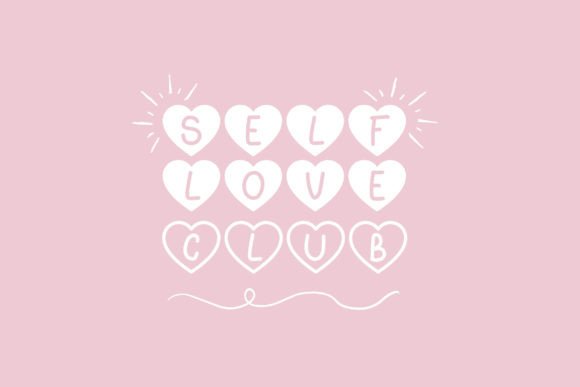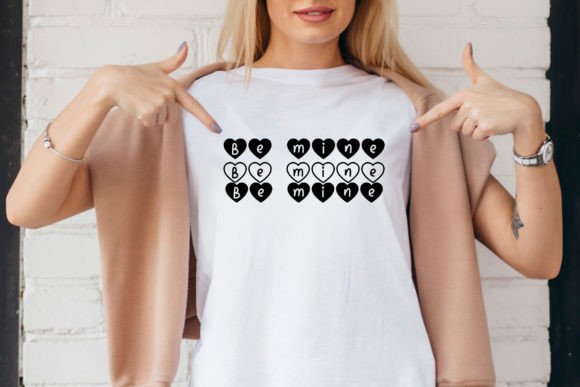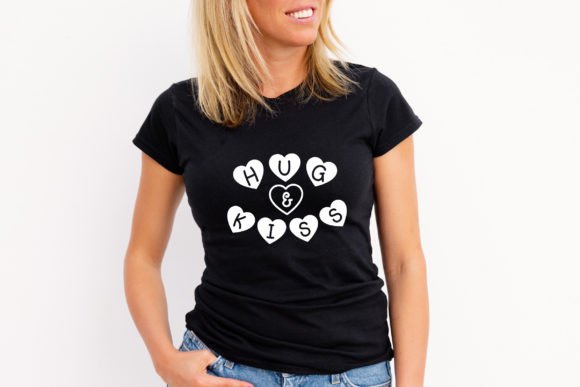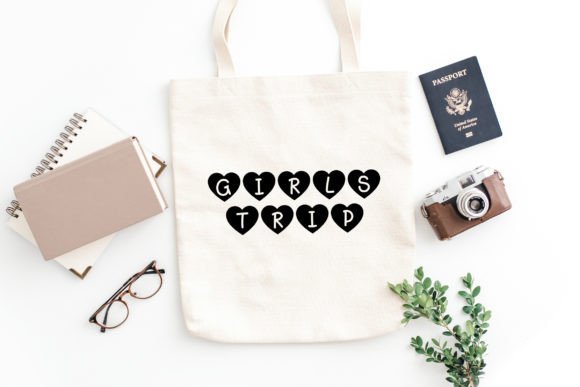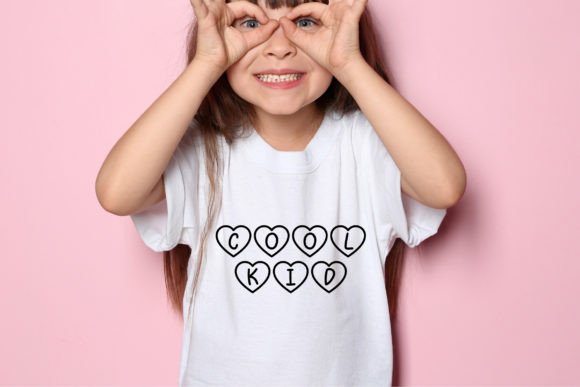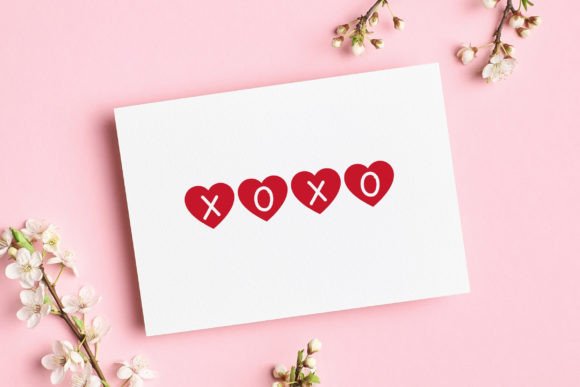
Introduction to Sassy Heart Font
As designers, we’ve all been there – stuck on a project, desperate for the perfect font to bring our vision to life. And then, like a ray of sunshine on a cloudy day, we stumble upon the perfect design resource. For those who crave a touch of whimsy and romance in their creative projects, we’re thrilled to introduce the Sassy Heart Font – a delightful display of love and affection, perfect for adding a dash of sweetness to any design.
This charming font features heart-shaped letters and cute handwriting, divided into two styles: Sassy Heart-Solid and Sassy Heart-Line. Whether you’re working on a free download for a client or a high-quality merchandise design, the Sassy Heart Font is sure to become the heartbeat of your creative expressions, infusing each project with love and style. With its transparent background and versatile design options, this font is a must-have for any designer looking to elevate their work.
Key Features of Sassy Heart Font
- Unique, handwritten style with a touch of sass, perfect for creative projects and adding a personal touch.
- Perfect for adding a touch of personality and whimsy to designs, logos, and branding materials.
Honest Review: Sassy Heart Font
I recently had the chance to work with the Sassy Heart Font in one of my creative projects, and I must say it was a fantastic experience. As a designer, I’m always on the lookout for high-quality design resources that can elevate my work, and this font definitely fits the bill.
What works well with the Sassy Heart Font is its versatility. It’s perfect for creating bold and eye-catching headlines, but it also looks great for body text. The font is highly customizable, allowing you to adjust the size, color, and spacing to fit your design needs. The transparent background option also makes it easy to integrate with other design elements.
Here are some key features that I loved about the Sassy Heart Font:
- Customizable with various options
- Works well with transparent background
One limitation of the Sassy Heart Font is that it may not be suitable for very formal or professional projects. The font has a playful, feminine vibe that may not fit with more conservative designs.
Overall, I’m thoroughly impressed with the Sassy Heart Font. It’s a fantastic design resource that’s perfect for creative projects that require a touch of sass and personality.
Sassy Heart Font
The Sassy Heart Font is a unique and playful design resource perfect for adding a touch of whimsy to your creative projects. With its transparent background, this high-quality font is a versatile design element that can be used in a variety of contexts.
Tips for Getting the Most Out of the Sassy Heart Font
Experiment with different font sizes and colors to achieve the desired effect. You can also combine the Sassy Heart Font with other design elements to create a unique visual identity.
The Sassy Heart Font is ideal for creative projects such as:
- Wedding invitations and decor
- Party decorations and flyers
Fontinca is similar to Sassy Heart Font in its flowing, cursive style, but it has a more refined and sophisticated look. While Sassy Heart Font is great for bold, playful designs, Fontinca is better suited for more elegant and sophisticated creative projects.